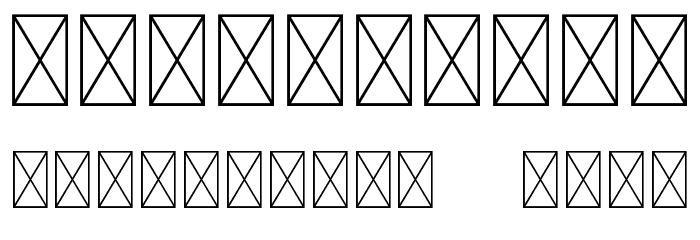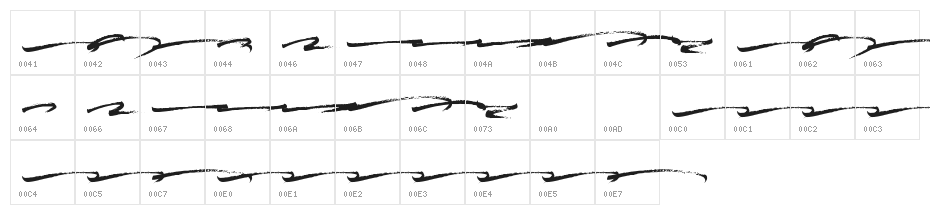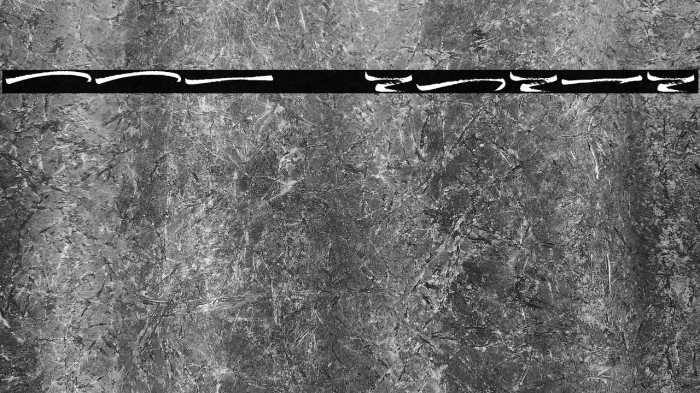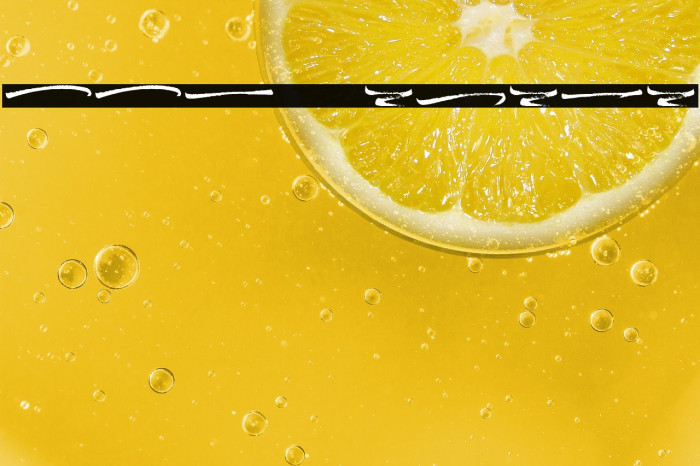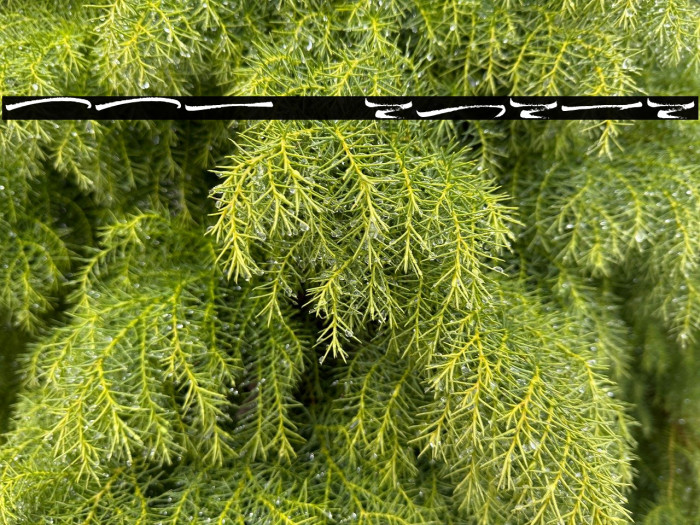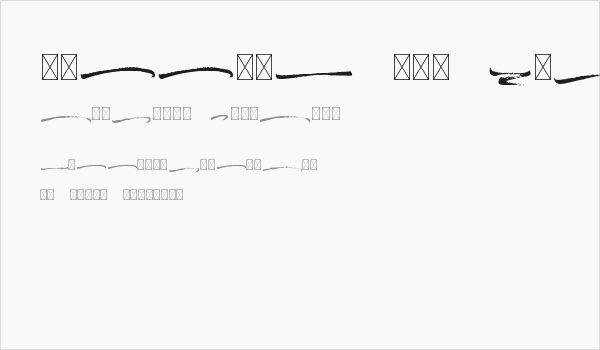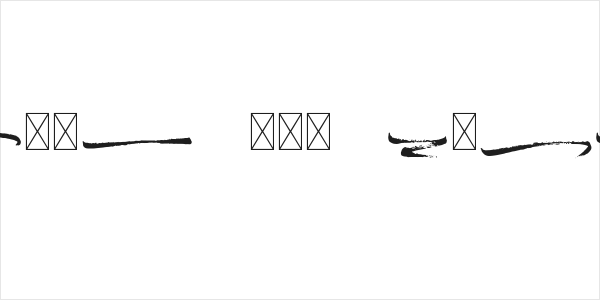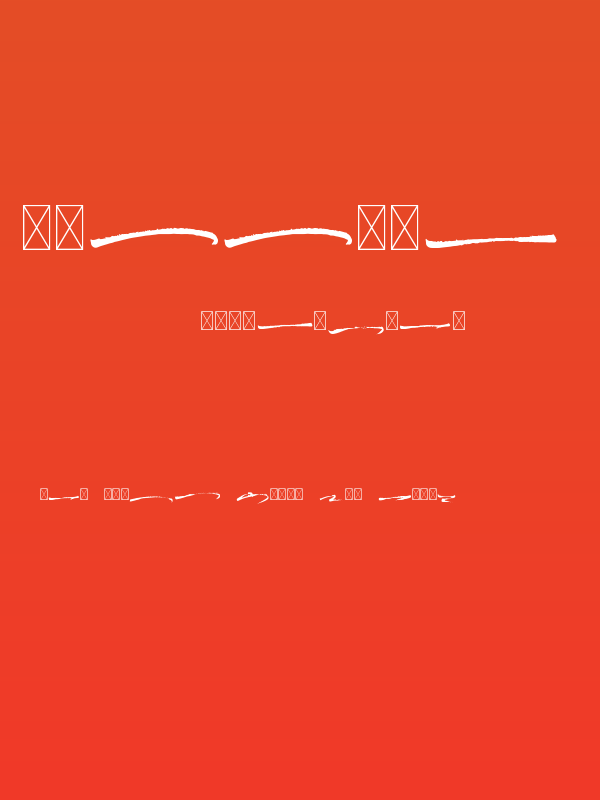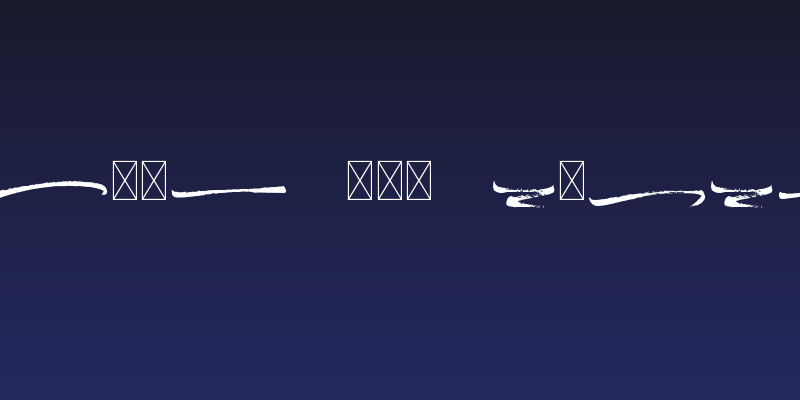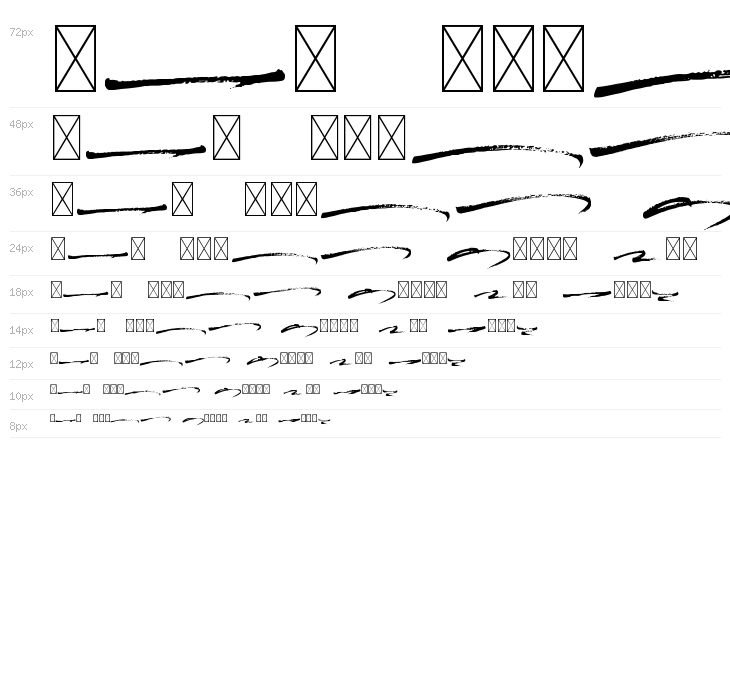
Rolling Out Swashes Font
Rolling Out Swashes Description
This font features elegant, flowing swashes that add a decorative flair to any text. The strokes are smooth and continuous, creating a sense of movement and grace. The design is reminiscent of calligraphy, with each letter seamlessly connecting to the next. The swashes are particularly prominent in the uppercase letters, providing a dramatic and artistic touch. The lowercase letters maintain the fluidity, with gentle curves and loops. This font is ideal for projects that require a sophisticated and artistic appearance, such as invitations, greeting cards, and branding materials. The overall style is both classic and modern, making it versatile for various design needs.
| Use Case | Logos, Headlines |
| Proposed Projects | Invitations, greeting cards, branding materials, artistic designs. |